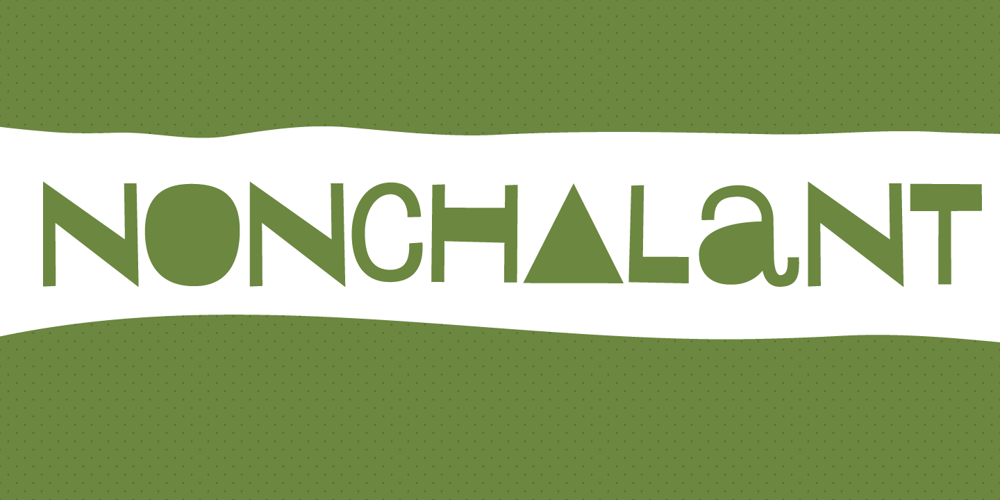
Nonchalant
Nonchalant font
Nonchalant Font Family was designed by Jakob Fischer and published by PizzaDude.dk. Nonchalant contains 1 styles and family package options. Nonchalant was inspired by an old Peter Sellers poster from the around 1970 (the year that I was born!) I wanted to keep the funky look of the 70’s but update with a more modern 21st century look. That’s how Nonchalant ended up looking like a hybrid between funk, grafitti and sans serif! Use Nonchalant for your posters, commercials, postcards, invitations, shout-outs or whatever needs something funky! Comes with an extensive amount of international letters!